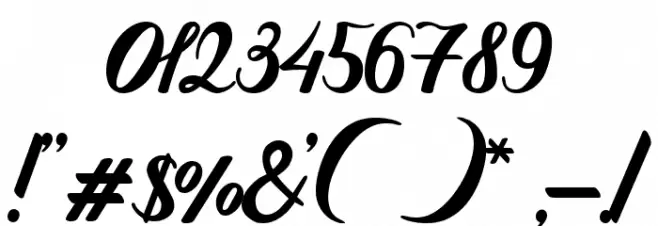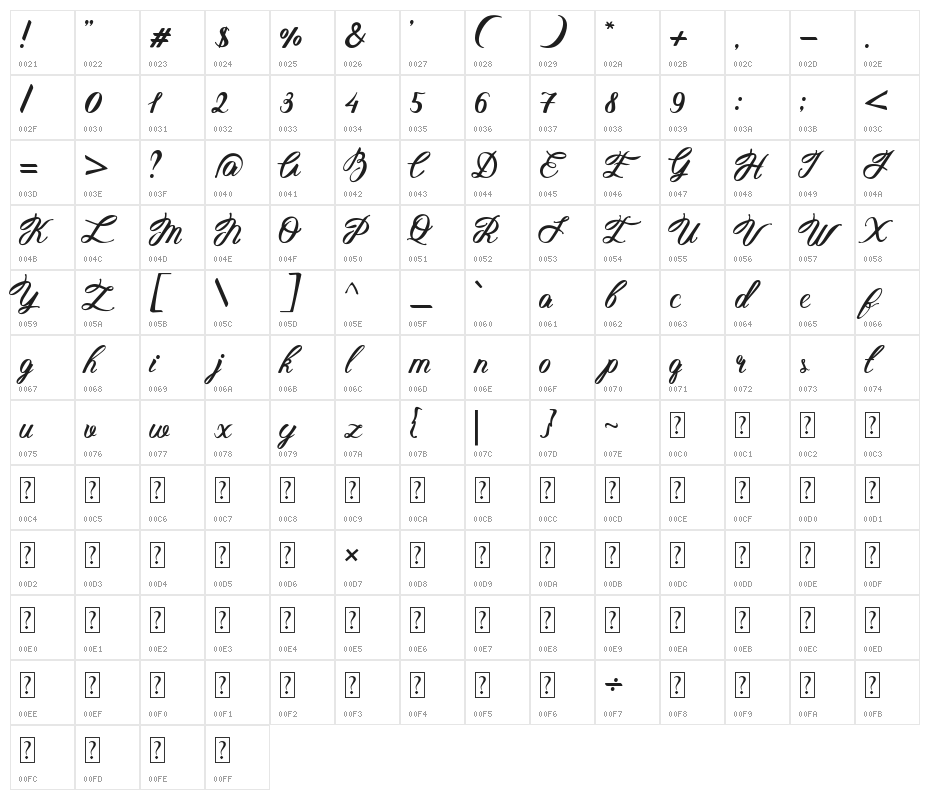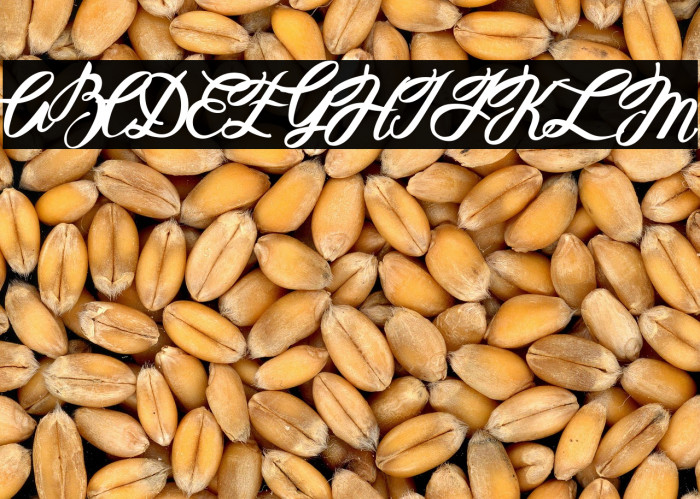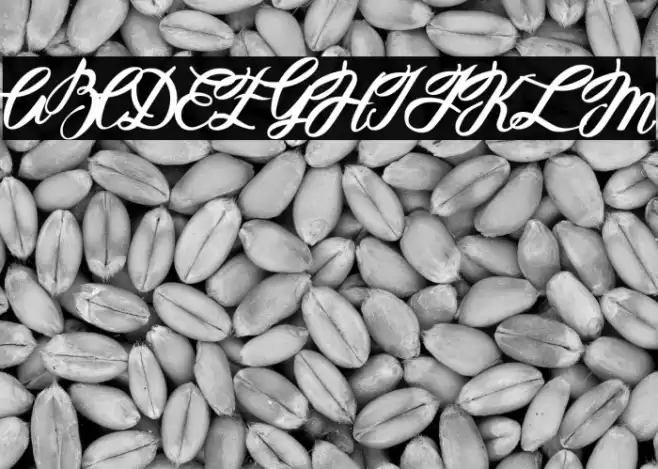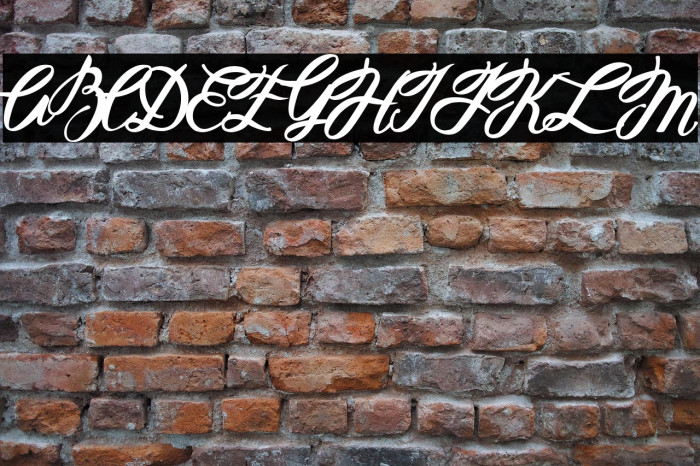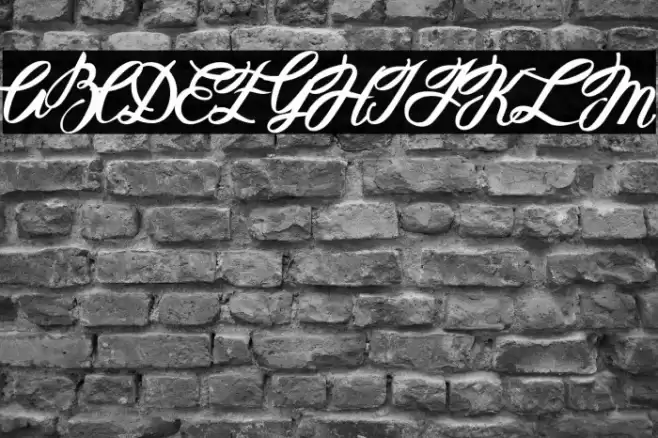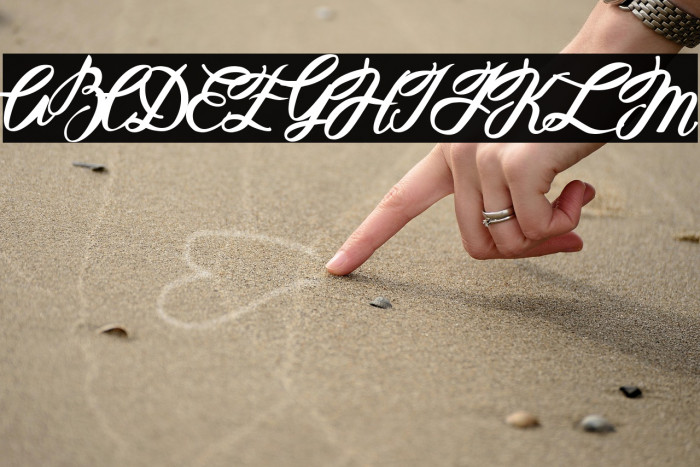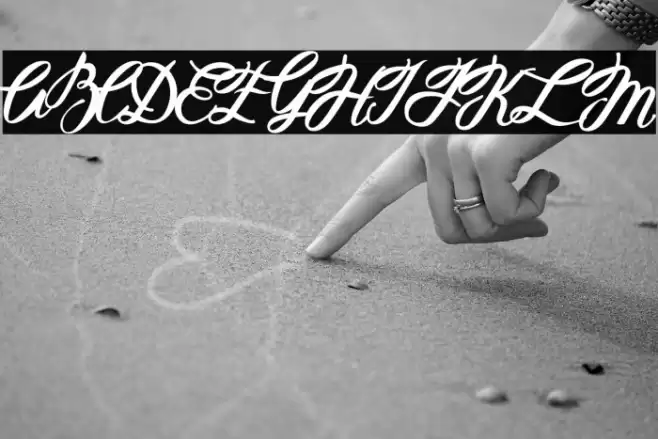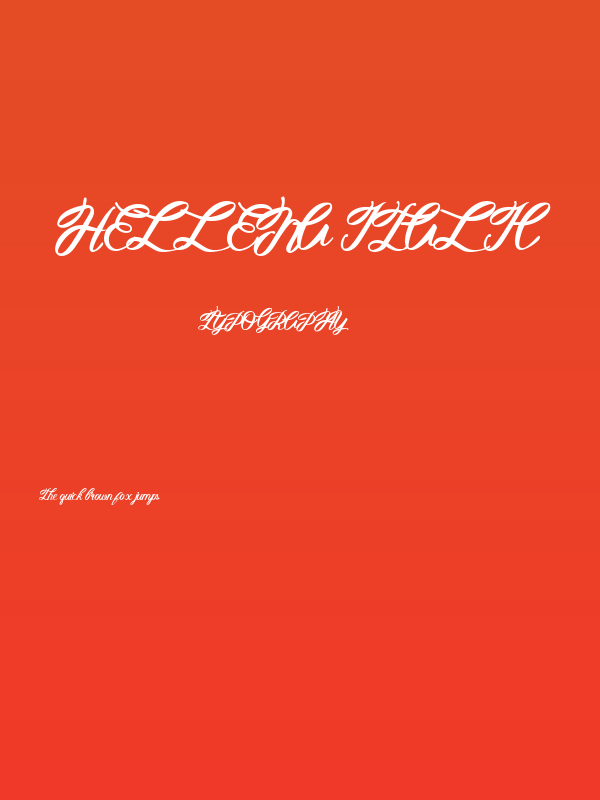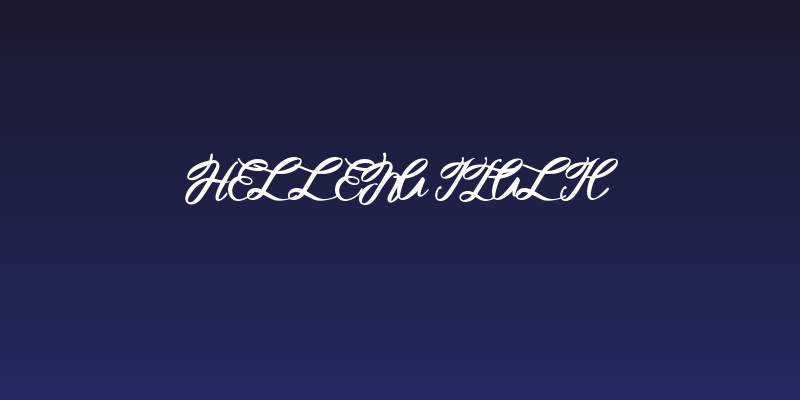
Hellena Italic Font
This font features a flowing, cursive style with elegant, sweeping strokes that give it a sophisticated and artistic appearance. The characters are interconnected, creating a seamless and fluid look. The uppercase letters are bold and prominent, while the lowercase letters maintain a consistent flow, enhancing readability. The numerals and special characters are designed to match the overall cursive style, ensuring a cohesive look across all text elements. This font exudes a sense of elegance and grace, making it suitable for formal and decorative purposes.
A flowing, cursive font with elegant, interconnected strokes.
- Font: Hellena Italic
- Proposed Projects: Ideal for wedding invitations, greeting cards, elegant branding, and decorative headings.
- Category: Script
- Character Spacing: Tight
- Overall Style: Elegant
- Use Case: Headlines, Invitations, Decorative text